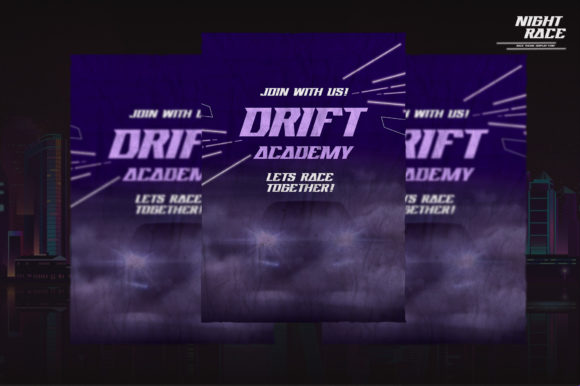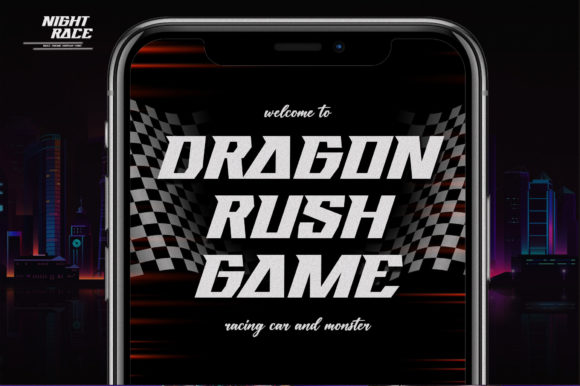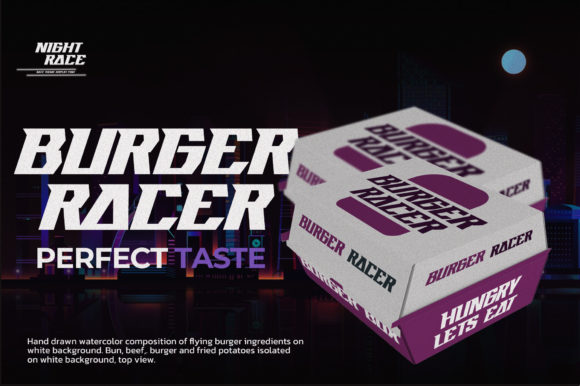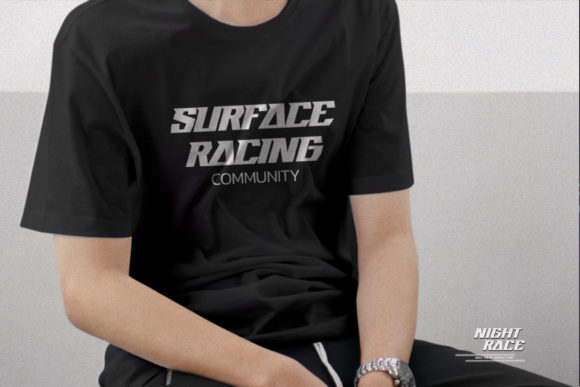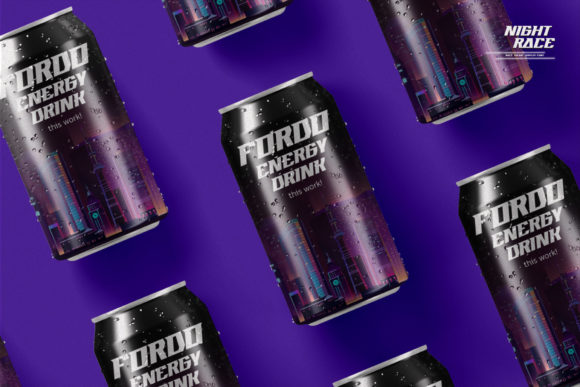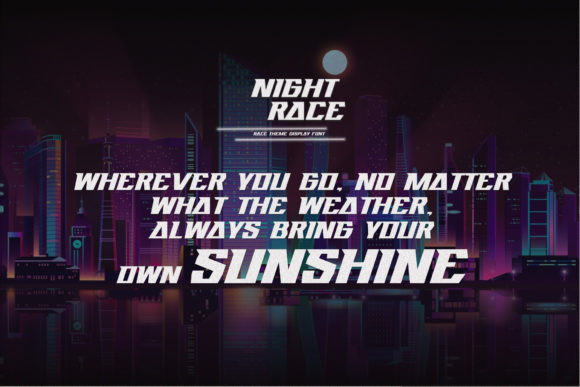
Introduction to Nightrace Font
Have you ever been in the zone, where creativity flows like a river and the perfect design idea just pops up? That’s exactly what happened when I stumbled upon the Nightrace Font. As a designer, I’ve always been on the lookout for high-quality fonts that can elevate my creative projects. And let me tell you, Nightrace Font is one of those game-changers that can take your designs to the next level.
With its modern look and stylish characters, Nightrace Font is a perfect fit for any project that requires a touch of speed and sophistication. Whether you’re working on a sports-themed brochure or a high-energy video, this font is sure to deliver. And the best part? It’s available for free download, making it an invaluable resource for designers of all levels.
So, what makes Nightrace Font so special? In this article, we’ll dive into the world of this amazing font, explore its features, and discover why it’s a must-have for any design project.
Key Features of Nightrace Font
- Unique, high-quality design for creative projects and personal use
- Features a transparent background, allowing for easy layering and composition in creative projects
- High-resolution design, suitable for use in high-quality print materials and digital displays (up to 300 DPI)
- Perfect for designers looking for a distinctive and stylish font to elevate their creative project
Honest Review: Nightrace Font
As a designer, I’m always on the lookout for high-quality design resources to elevate my creative projects. Recently, I had the chance to work with the Nightrace Font, and I must say, it’s been a game-changer.
What works well: ✨ The Nightrace Font boasts a sleek, modern aesthetic that’s perfect for any design project. The transparent background makes it easy to overlay on images or use as a standalone element. The font is also incredibly versatile, suitable for everything from logos to headings.
- Suitable for logos, headings, and more
Any limitations: ⚠️ While the Nightrace Font is generally excellent, I did notice that the font files can be a bit large, which may affect loading times on slower devices. Additionally, some users may find the font too minimalist for their taste.
Overall impression: I’m thoroughly impressed with the Nightrace Font. Its high quality and versatility make it an excellent addition to any designer’s toolkit. With its free download option, it’s also a great resource for designers on a budget. If you’re looking for a modern, high-quality font for your next creative project, I highly recommend giving the Nightrace Font a try.
Nightrace Font
To get the most out of the Nightrace Font, use it in conjunction with other design resources, such as graphics and textures. Experiment with different font sizes and styles to create a unique look. The Nightrace Font is also versatile enough to be used in a variety of creative projects, from branding to editorial design.
The Nightrace Font is commonly used in creative projects such as branding, editorial design, and social media graphics. It is also used in presentations and documents to add a unique touch. The font’s high-quality design and transparent background make it an ideal choice for designers looking to create visually appealing graphics and designs.